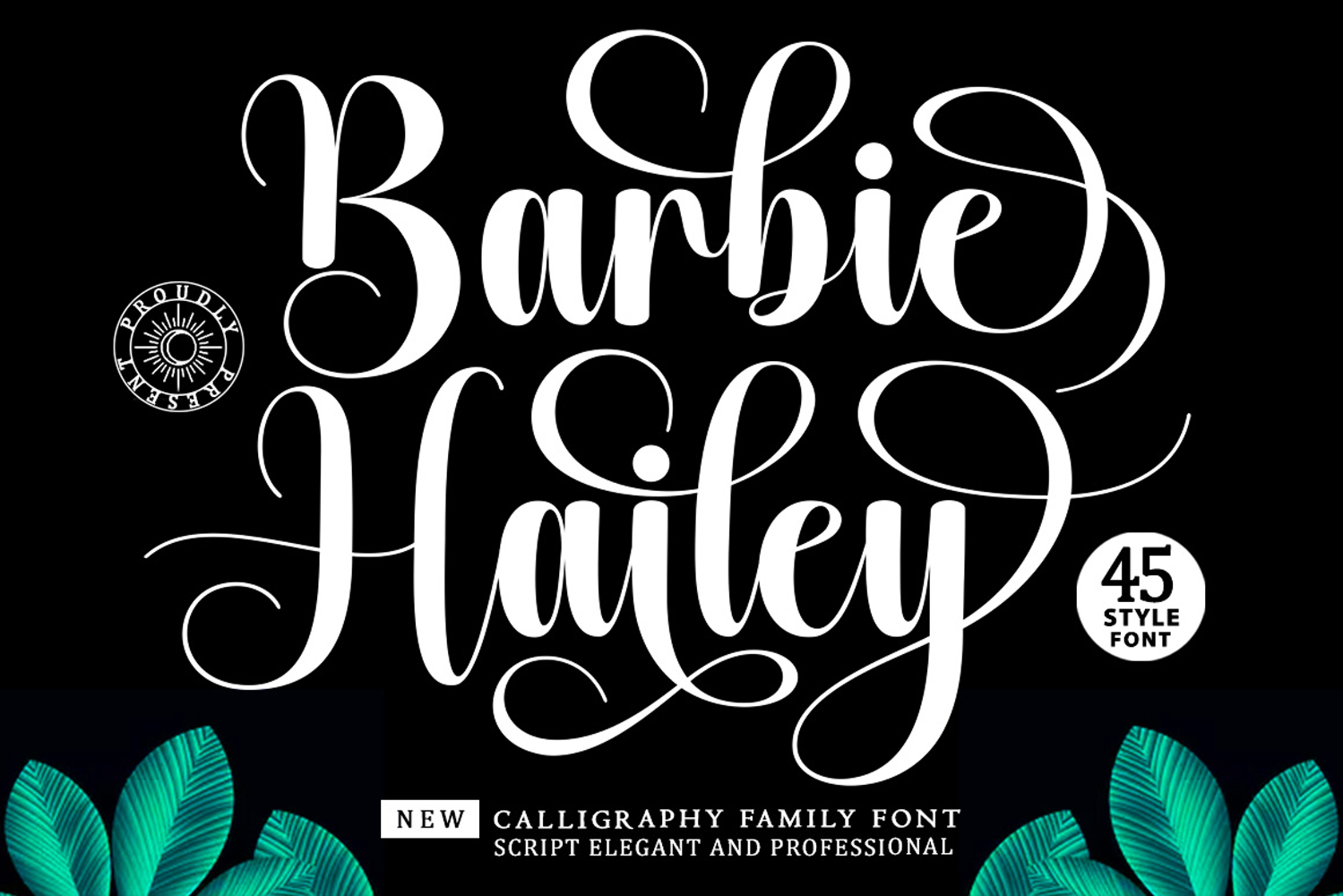
Barbie Hailey Font Family with 45 Styles
Barbie Hailey Family Script Font Collection is a collection of 45 beautifully designed fonts with a modern and elegant touch, exuding elegance.
Barbie Hailey font is sleek, clean, feminine, sensual, glamorous, simple, and highly readable thanks to its many beautiful letter connections. I also offer several stylistic alternatives for some of the letters. This elegant style is perfect for use in a variety of formal applications such as invitations, labels, restaurant menus, logos, fashion, makeup, stationery, novels, magazines, books, greeting/wedding cards, packaging, labels, or any type of advertising use.